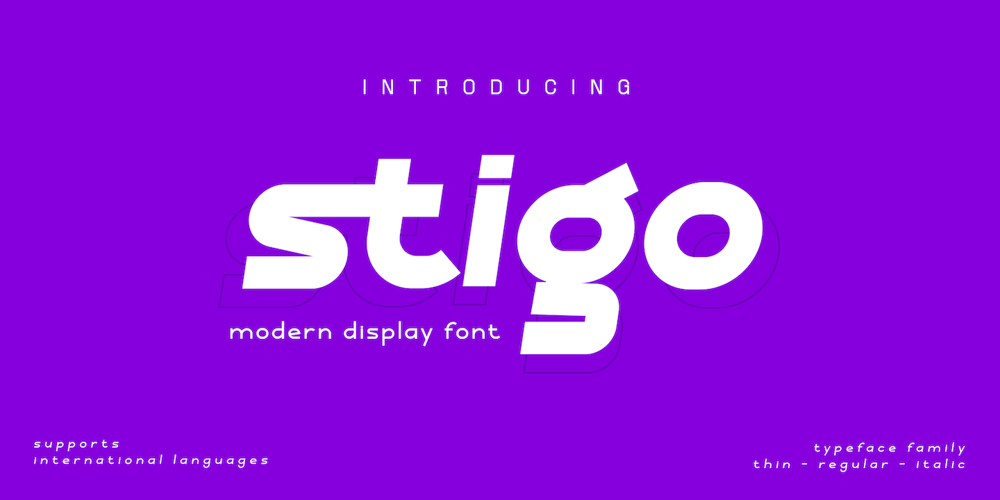
Stigo Font Family was designed by Rozikan and published by Twinletter. Stigo contains 4 styles and family package options. Introduce the Stigo, san serif font which is very simple and clean, has a perfect and attractive impression on the curves and thickness designs that we designed in detail in each letter, if you use this font as a word or sentence it will further strengthen and beautify your design,This font is perfect for games, sporting events, branding, banners, posters, movie titles, book titles, quotes, clothing, logotypes, and more.of course, your various design projects will be perfect and extraordinary if you use this font because this font is equipped with a complimentary font family, both for titles and subtitles and sentence text.start using our fonts for your amazing projects.